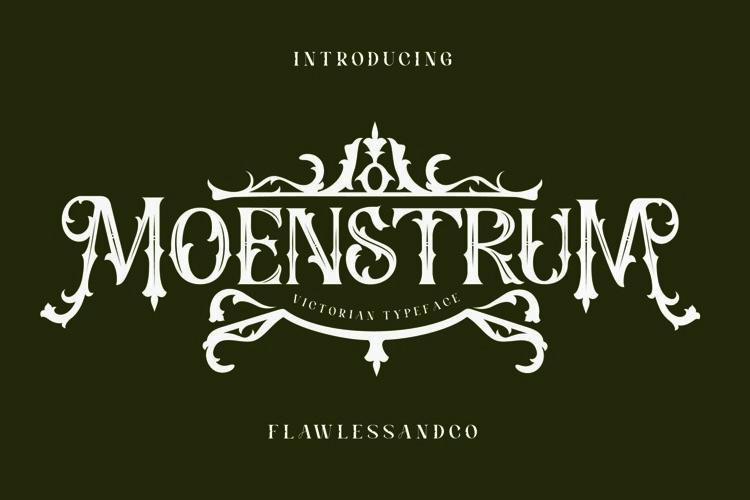
Moenstrum Font
Moenstrum FontMoenstrum is an authentic and unique blackletter font that made with bold and striking style.
An Original typeface that suitable for any graphic designs such as branding materials, t-shirt, print, business cards, logo, poster, t-shirt, photography, quotes .etc
This font support for some multilingual. Modern Sweet Retro that contains uppercase A-Z and lowercase a-z, alternate character, numbers 0-9, and some punctuation.